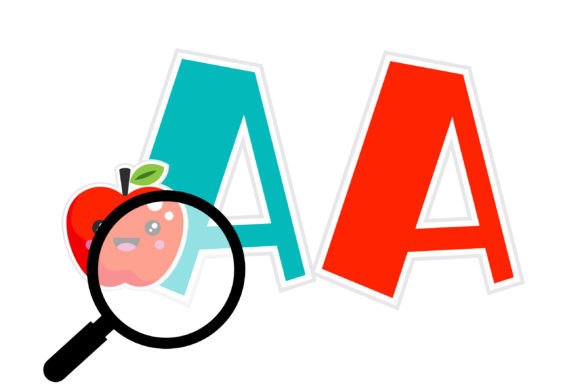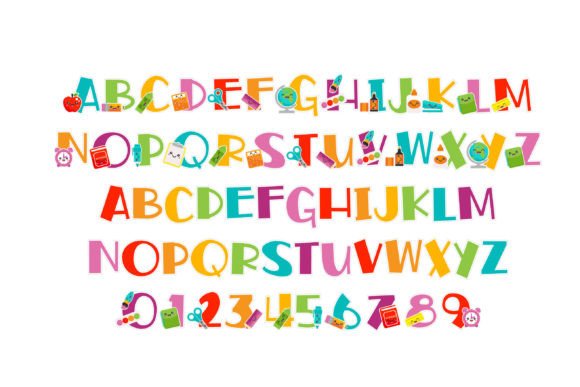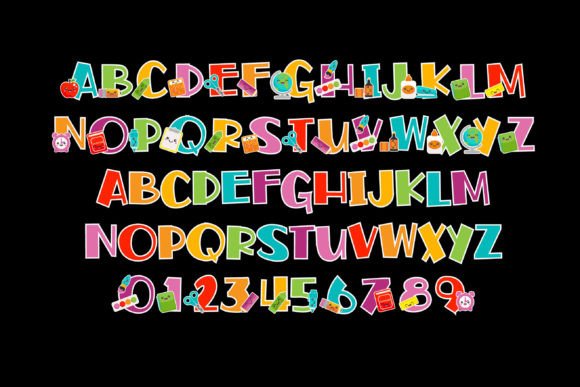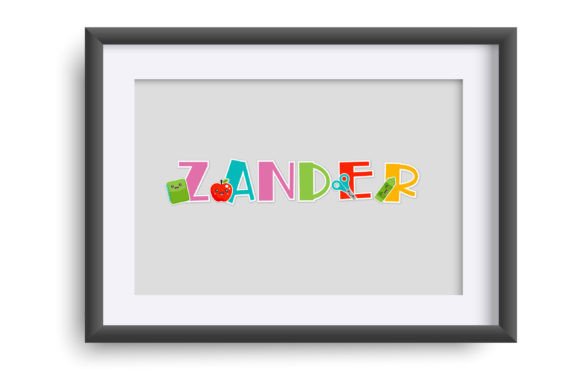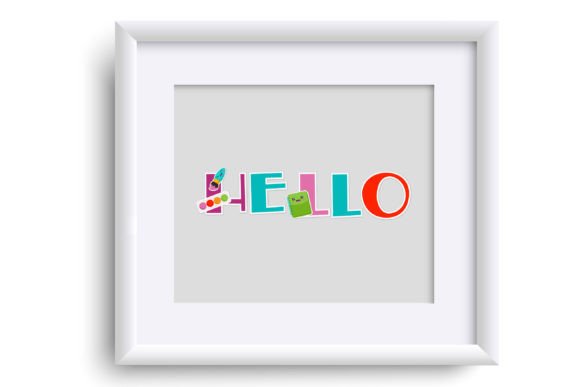
Get Schooled Font: A Fun and Colorful Addition to Your Design Toolbox
Are you tired of using the same old fonts in your designs? Look no further than the Get Schooled Font, a full-color font that features blocky, sans serif lettering with a fun twist. This unique font comes with school supplies by the uppercase and a lowercase without, making it perfect for designers and crafters who want to add a touch of personality to their work.
What is Get Schooled Font?
The Benefits of Full-Color SVG Fonts
Full-color SVG fonts like Get Schooled Font offer a range of benefits for designers and crafters. For one, they provide a unique and playful way to add personality to your designs. With a full range of colors and styles to choose from, you can create anything from simple text logos to complex illustrations.
Another benefit of full-color SVG fonts is that they are vector-based, which means they can be scaled to any size without losing quality. This makes them perfect for use in a variety of applications, from business cards to billboards.
Adding a Touch of Personality to Your Designs
Get Schooled Font is the perfect way to add a touch of personality to your designs. Whether you’re working on a project for a client or creating something for your own business, this font is sure to make your work stand out. With its fun and playful school supplies theme, it’s perfect for designers and crafters who want to add a little something extra to their work.
Get Schooled Font is a fun and colorful addition to any design toolbox. With its unique blocky, sans serif lettering and school supplies theme, it’s perfect for designers and crafters who want to add a touch of personality to their work. Whether you’re working on a project for a client or creating something for your own business, this font is sure to make your work stand out. So why not give it a try and see what you can create?
In conclusion, Get Schooled Font is a great way to add some fun and personality to your designs. Its unique design and range of colors make it perfect for a variety of applications, from simple text logos to complex illustrations. With its ease of use and compatibility with a range of programs, it’s a great choice for designers and crafters of all levels.